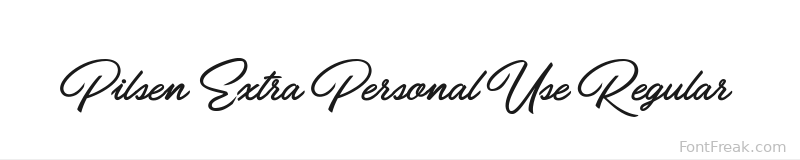
Pilsen Extra Personal Use Regular
About Pilsen Extra Personal Use Regular
Pilsen Extra Personal Use Regular is a captivating handwritten font that exudes a warm and inviting charm. Designed by Billy Argel Fonts, this typeface features elegant, flowing letterforms that capture the essence of personal touch. The font showcases moderate stroke weight and a graceful contrast, making it visually appealing yet easy to read. Its slightly varied spacing enhances its organic feel, while the subtle flourishes add a decorative element that elevates its overall aesthetic.
This font is ideal for a variety of specific applications, including wedding invitations where a personal and romantic touch is desired. It also works beautifully for greeting cards, providing a heartfelt sentiment in a visually striking manner. Small business owners can utilize Pilsen Extra Personal Use Regular for branding materials, ensuring their logos and promotional content convey warmth and approachability. Additionally, it’s well-suited for social media graphics, allowing content creators to craft engaging posts that resonate with their audience.
Targeted towards graphic designers, small business owners, and content creators, this font offers versatility and character, making it a great choice for anyone looking to make a memorable impression. Its unique personality stands out in a sea of generic fonts, offering a refreshing alternative that communicates authenticity and creativity.